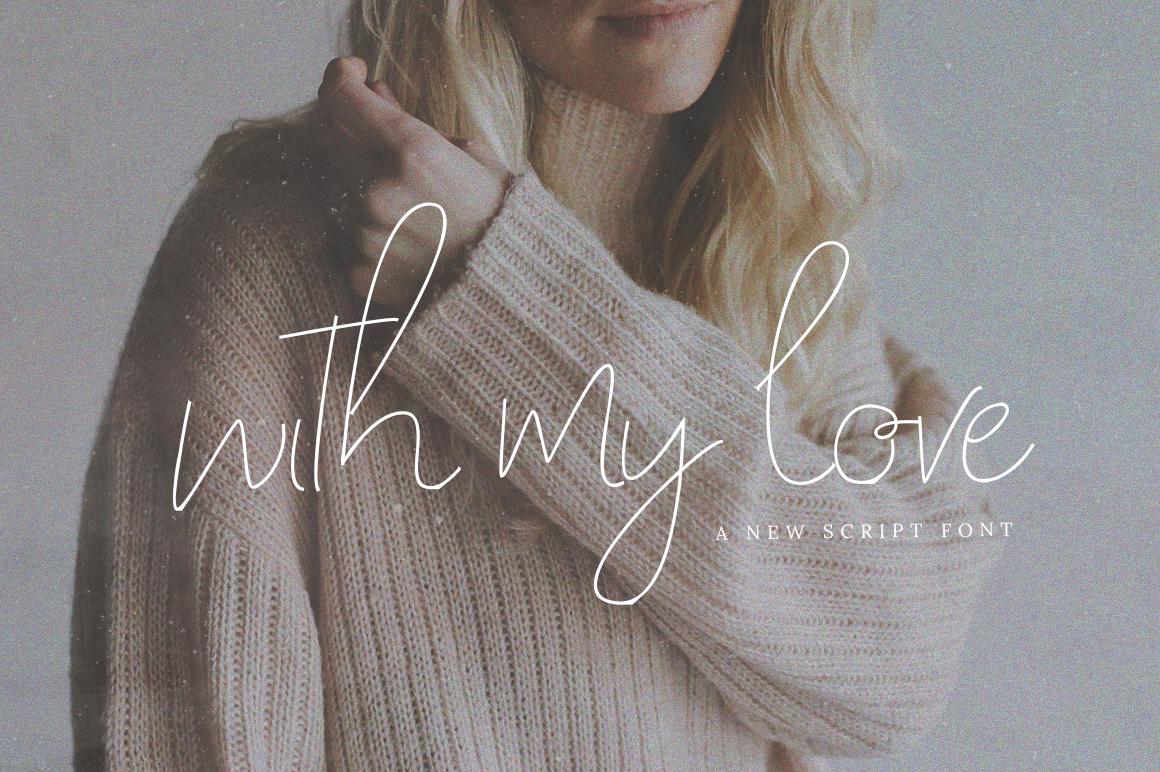
With My Love Script Font for Web Design and Branding
Elevating Hero Headers with With My Love Script Typography
When integrating With My Love Script into high-impact web layouts, designers must prioritize how this specific typeface functions within hero sections and above-the-fold content. As a premium Script Handwritten font, it brings an immediate sense of whimsy and personal connection that standard sans serif Fonts often lack in digital spaces. For web designers crafting landing pages or boutique e-commerce storefronts, this font serves as a powerful visual hook that establishes brand tone before the user even scrolls. The key to successful implementation lies in treating the typeface as a graphical element rather than mere text; its fluid strokes require ample negative space to breathe on responsive screens.
In conversion-focused layouts, the primary headline dictates the emotional trajectory of the user journey. With My Love Script excels here because it balances decorative flair with enough structural integrity to remain legible at large display sizes. When designing for SaaS founders or creative coaches, using this font for value propositions can soften technical messaging, making complex offers feel more accessible and human. However, UI designers must be cautious with line height and letter spacing. Unlike rigid grid-based typography, this handwritten style has variable ascenders and descenders that can clash if leading is too tight. Increasing line-height by 10-15% above standard recommendations ensures that the whimsical loops do not collide, preserving readability across desktop and tablet viewports.
Optimizing Readability for Mobile Browsers and Responsive Layouts
Digital product creators must rigorously test With My Love Script on mobile devices to ensure the preppy blog aesthetic translates without sacrificing usability. While stunning on retina displays, intricate script fonts can degrade on smaller screens where pixel density varies. For app screens and mobile-first websites, reserve this typeface for short, punchy statements rather than lengthy sentences. A three-to-five word header maintains the font’s hand-drawn charm, whereas longer strings risk becoming illegible blobs of ink. This constraint actually benefits UX design by forcing concise, impactful copywriting that aligns with modern scanning behaviors.
Contrast ratios play a critical role when deploying Script Handwritten styles over dynamic backgrounds. When placing With My Love Script over lifestyle photography or textured gradients common in lifestyle branding, ensure a minimum contrast ratio of 4.5:1 to meet accessibility standards. Designers should consider adding subtle text shadows or semi-transparent overlays behind the text to maintain clarity without obscuring the background imagery. Furthermore, avoid using this font for navigation menus or functional buttons. Its organic forms are perfect for emotional headers but create cognitive friction when users need to quickly identify interactive elements. Reserve clean sans serif Fonts for UI controls and use the script solely for atmospheric enhancement.
Crafting Hand-Drawn Logos and Preppy Blog Identities Online
Establishing a consistent online identity requires With My Love Script to function seamlessly across logos, favicons, and social media assets. For bloggers and influencers aiming for that distinctive preppy aesthetic, this font provides an authentic signature look that feels bespoke rather than templated. In logo design, the typeface’s natural flow suggests movement and affection, making it ideal for wedding planners, artisanal shops, and wellness brands. Web designers should export logo variations in SVG format to ensure crisp rendering at any scale, from browser tabs to billboard-sized digital ads. The hand-drawn nature of the glyphs means no two letters are perfectly identical, lending a layer of craftsmanship that builds trust and perceived value.
Beyond the primary logo, this typeface strengthens brand cohesion when used in recurring content sections. Digital product creators can utilize With My Love Script for category titles, pull quotes, and newsletter headers to reinforce visual memory. Consistency is paramount; define specific CSS classes for this font to ensure uniform sizing and color application throughout the site architecture. When paired with a structured editorial layout, the juxtaposition of organized grids and fluid typography creates a sophisticated tension that keeps users engaged. This approach works exceptionally well for course sales pages where the goal is to balance professional authority with personal mentorship vibes.
Strategic Font Pairing for Editorial Web Experiences
Achieving visual hierarchy demands pairing With My Love Script with complementary typefaces that ground its exuberance. For editorial web experiences and long-form content, combine this display font with a neutral geometric sans serif or a classic transitional serif. The script handles the emotional heavy lifting in headlines, while the secondary font ensures effortless reading for body copy. Avoid pairing it with other decorative or highly stylized fonts, as this creates visual noise and competes for attention. Instead, let the simplicity of the supporting typeface amplify the unique character of the script.
- Geometric Sans Serif: Creates a modern, clean contrast suitable for tech-adjacent lifestyle brands and contemporary portfolios.
- Traditional Serif: Enhances the vintage, romantic quality for wedding vendors, historians, or luxury heritage brands.
- Monospaced Font: Offers an edgy, brutalist counterpoint for fashion blogs or avant-garde art galleries seeking unconventional layouts.
- Condensed Sans Serif: Maximizes space efficiency in sidebars and footers while letting the script dominate the main content area.
This strategic combination ensures that Script Handwritten elements serve as deliberate accents rather than overwhelming distractions. By anchoring the design with stable Fonts, designers guide the user’s eye through the page in a predictable rhythm, improving both engagement metrics and conversion rates.
Technical performance also impacts SEO and user experience. Webfonts add payload weight, so subset With My Love Script to include only necessary characters and languages. Utilize WOFF2 compression and implement font-display: swap in CSS to prevent invisible text during loading. For high-traffic landing pages, consider preloading critical font files to minimize layout shift (CLS). These optimizations ensure that the whimsical feelings evoked by the typeface arrive instantly, maintaining the seamless experience users expect from premium digital brands. By balancing aesthetic appeal with technical rigor, designers transform a beautiful font file into a robust asset that drives business results.